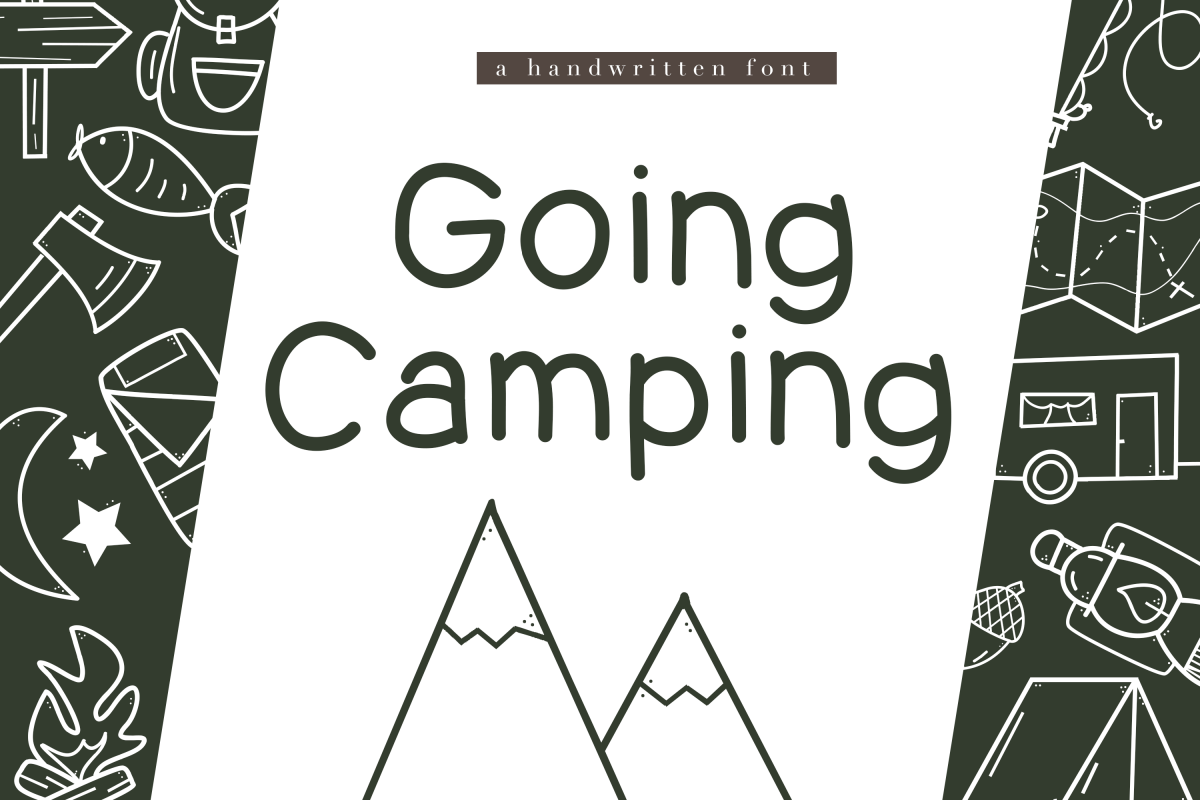
Going Camping - A Handwritten Font
Going Camping is a fun font with a classic handwritten feel.
The letters are young and easy to read.
This font is perfect for quotes, headings, blogs, logos, invitations and more!
This font does not include accent characters.